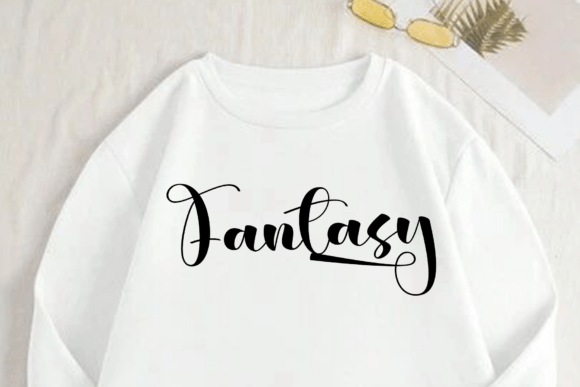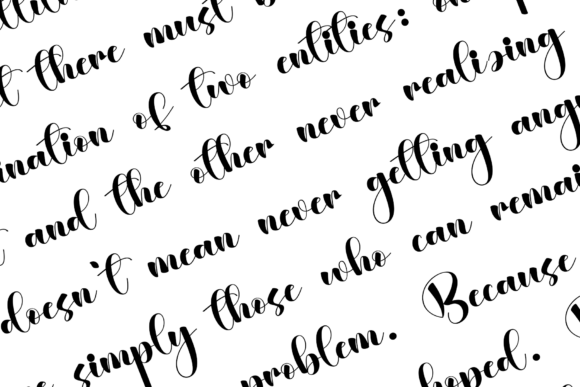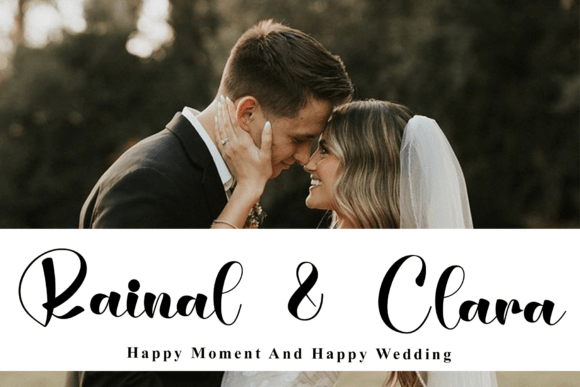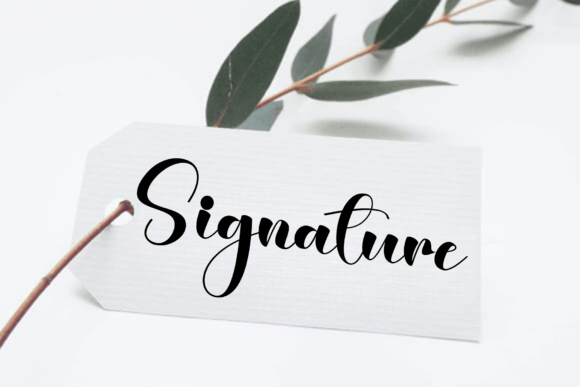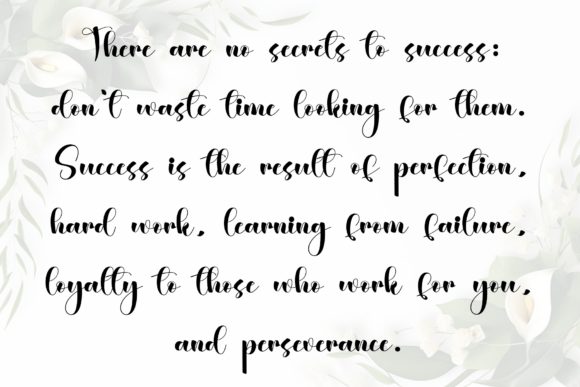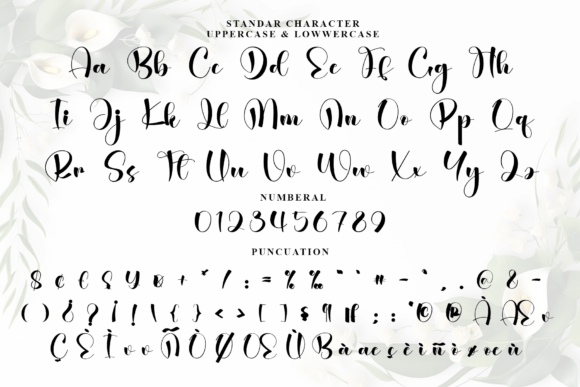
Dreaming Christmas Font: Elevate Your Designs with Luxurious Elegance
Are you searching for a font that exudes luxury, romance, and sophistication? Look no further than the Dreaming Christmas font, a stunning calligraphy script typeface that is sure to elevate your designs to new heights. With its exquisite, elongated loops and flowing swashes, this font is perfect for designers and crafters who want to add a touch of vintage glamour and refined beauty to their work.
A Quintessential Romantic Script Typeface
Dreaming Christmas is a luxurious and graceful calligraphy script font that is defined by its dramatic capital letters and impressive terminal swashes. The high-contrast strokes, featuring thin upstrokes and thicker downstrokes, give it a classic, formal elegance that is perfect for high-end designs. Whether you’re creating wedding invitations, formal event branding, or product packaging, this font is sure to make a lasting impression.
Key Features of Dreaming Christmas Font
• Exquisite, elongated loops: The Dreaming Christmas font features beautiful, flowing loops that add a touch of elegance and sophistication to any design.
• Flowing swashes: The font’s swashes can be used to underscore or connect words, creating a highly customized and stunning typographic layout.
• High-contrast strokes: The thin upstrokes and thicker downstrokes give the font a classic, formal elegance that is perfect for high-end designs.
• Dramatic capital letters: The font’s capital letters are truly dramatic, making them perfect for headings, titles, and other high-impact designs.
Perfect for High-End Designs
The Dreaming Christmas font is perfectly suited for a variety of high-end designs, including:
• Wedding invitations: The font’s luxurious and romantic feel makes it perfect for wedding invitations, save-the-date cards, and other wedding-related designs.
• Formal event branding: Whether you’re creating branding materials for a formal gala, charity event, or corporate function, this font is sure to make a lasting impression.
• Perfume or jewelry product packaging: The font’s elegant and sophisticated feel makes it perfect for product packaging that requires a touch of luxury and refinement.
Tips for Using Dreaming Christmas Font
To get the most out of the Dreaming Christmas font, here are a few tips to keep in mind:
• Use it sparingly: While the font is beautiful, it’s best to use it sparingly to avoid overwhelming your design. Use it for headings, titles, or other high-impact elements.
• Pair it with a simple font: To create visual interest, pair the Dreaming Christmas font with a simple, clean font for body text.
• Experiment with swashes: The font’s swashes can add a touch of elegance and sophistication to your design. Experiment with different swash styles to find the one that works best for your project.
The Dreaming Christmas font is a luxurious and elegant calligraphy script typeface that is perfect for designers and crafters who want to add a touch of vintage glamour and refined beauty to their work. With its exquisite, elongated loops and flowing swashes, this font is sure to elevate your designs to new heights. Whether you’re creating wedding invitations, formal event branding, or product packaging, this font is sure to make a lasting impression.